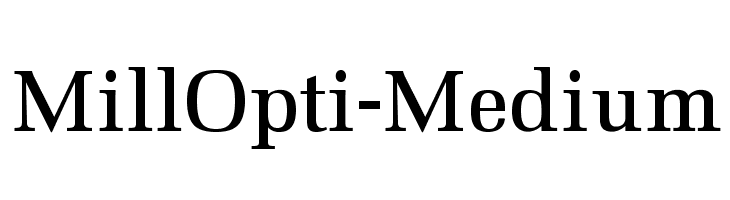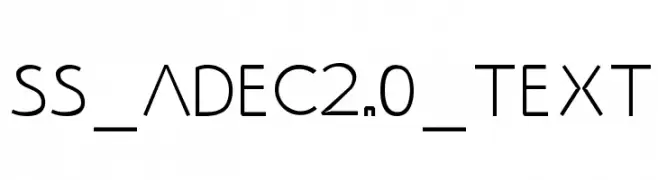
A modern, geometric sans-serif font with clean lines and balanced proportions.
A clean, modern sans-serif font with balanced proportions and excellent readability.
A classic serif font with elegant strokes and refined proportions.
A modern serif typeface with elegant proportions and a sophisticated style.
A classic serif font with elegant strokes and balanced proportions.
A modern serif font with elegant proportions and refined serifs.
A classic serif font with elegant, refined strokes and balanced proportions.
A modern, bold sans-serif font with clean lines and balanced proportions.
A classic serif typeface with elegant proportions and refined contrast.
A classic serif font with elegant strokes and balanced proportions.